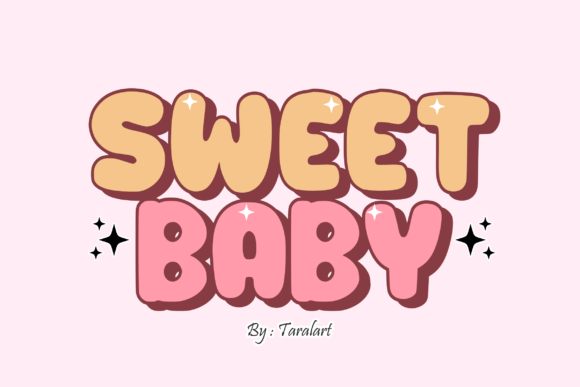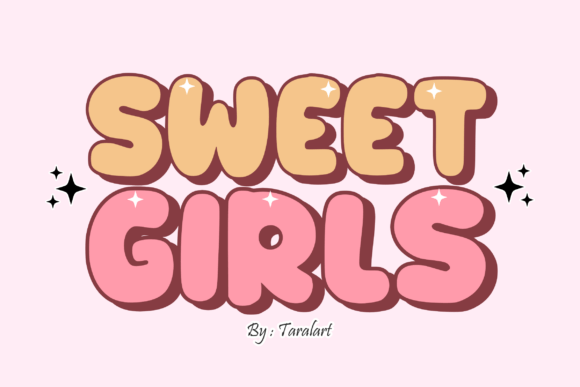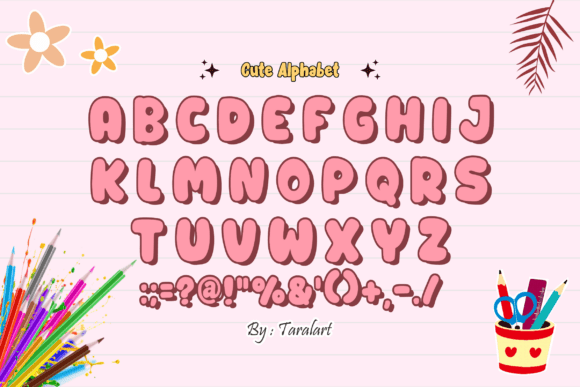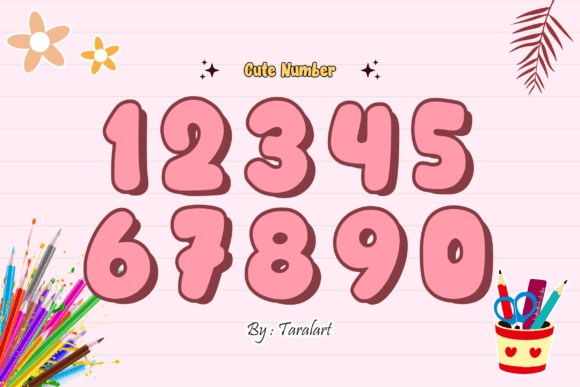
Introduction to Small Bubble Font
Welcome to the whimsical world of “Small Bubble”, a contemporary Bubble font where every character boasts its own charm and uniqueness.
With its lovable and stylish appeal, Small Bubble effortlessly stands as an ideal choice for sublimation designs Think enchanting t-shirt prints, warm and inviting mugs, fashionable tote bags, lively animations, or engaging comic titles.
Key Features of Small Bubble Font
Why Choose Small Bubble Font?
Small Bubble Font offers exceptional quality and versatility, making it a valuable addition to your design toolkit. Whether you’re creating for personal projects or commercial use, Small Bubble Font delivers professional results.